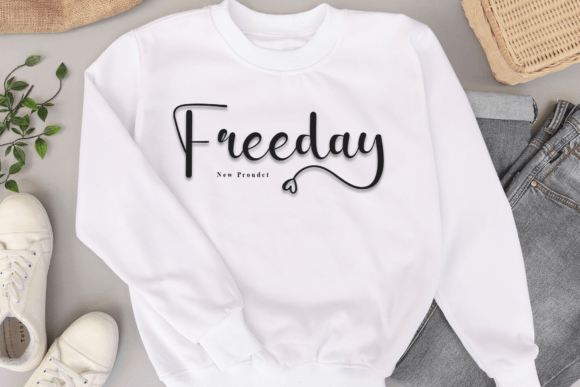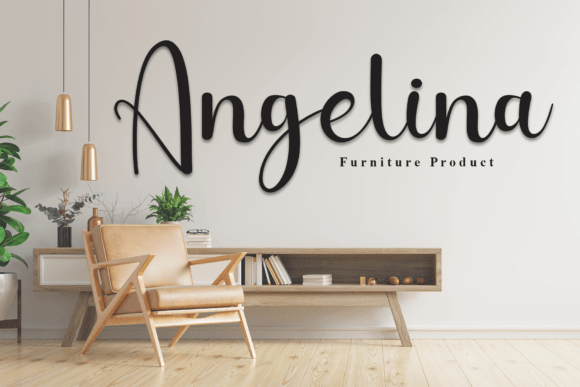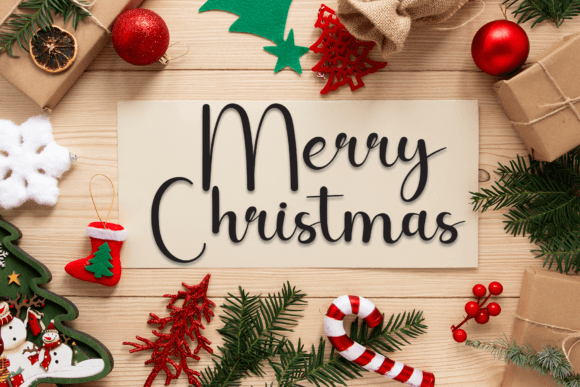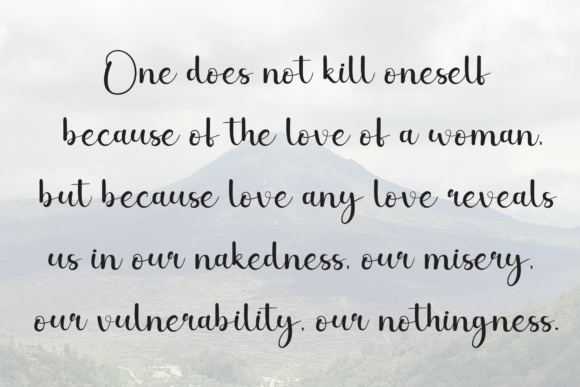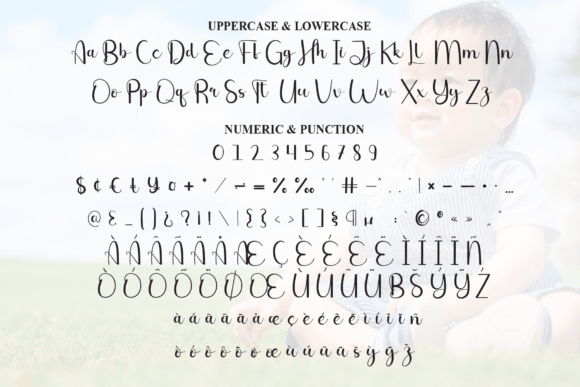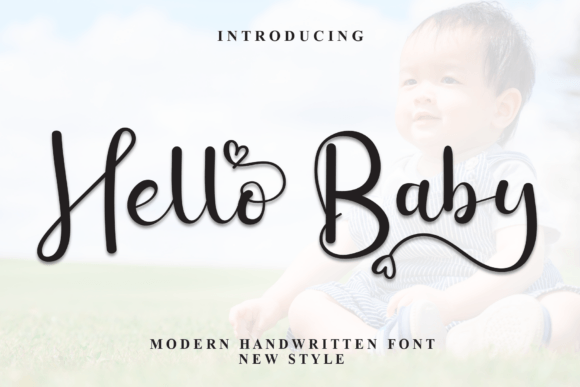
Hello Baby Font: Add a Whimsical Touch to Your Designs
Are you looking for a font that can add a dash of playfulness and whimsy to your designs? Look no further than the Hello Baby Font! This adorably charming handwritten display font is perfect for designers and crafters who want to create unique and eye-catching wedding invitations, cards, and other designs. In this article, we’ll take a closer look at the Hello Baby Font and explore its features, benefits, and uses.
A Whimsical and Playful Typeface
The Hello Baby Font is a beautifully crafted handwritten display font that is designed to add a touch of whimsy and playfulness to your designs. Its sweet and affable nature makes it perfect for creating wedding invitations, cards, and other designs that require a personal and charming touch. The font’s intriguing quaintness wraps your designs in a delightful, interactive layer that is sure to capture the attention of your audience.
Key Features of Hello Baby Font
- Handwritten Display Font: The Hello Baby Font is a handwritten display font that is designed to add a personal and charming touch to your designs.
- Whimsical and Playful: The font’s whimsical and playful nature makes it perfect for creating unique and eye-catching designs.
- Sweet and Affable: The font’s sweet and affable nature makes it perfect for creating designs that require a personal and charming touch.
- Perfect for Wedding Invitations and Cards: The Hello Baby Font is perfect for creating wedding invitations, cards, and other designs that require a touch of elegance and sophistication.
Benefits of Using Hello Baby Font
The Hello Baby Font offers a range of benefits for designers and crafters, including:
- Unique and Eye-Catching Designs: The font’s whimsical and playful nature makes it perfect for creating unique and eye-catching designs that stand out from the crowd.
- Personal and Charming Touch: The font’s sweet and affable nature makes it perfect for creating designs that require a personal and charming touch.
- Versatile: The font is versatile and can be used for a range of design projects, from wedding invitations and cards to posters and flyers.
Tips and Tricks for Using Hello Baby Font
Here are some tips and tricks for using the Hello Baby Font:
- Use it for Headings and Titles: The Hello Baby Font is perfect for headings and titles, as it adds a touch of whimsy and playfulness to your designs.
- Experiment with Different Colors: Experiment with different colors to find the perfect combination that suits your design.
- Pair it with Other Fonts: Pair the Hello Baby Font with other fonts to create a unique and eye-catching design.
The Hello Baby Font is a beautifully crafted handwritten display font that is perfect for designers and crafters who want to add a touch of whimsy and playfulness to their designs. Its sweet and affable nature makes it perfect for creating wedding invitations, cards, and other designs that require a personal and charming touch. With its ease of use, versatility, and range of benefits, the Hello Baby Font is a must-have for any designer or crafter looking to create unique and eye-catching designs.